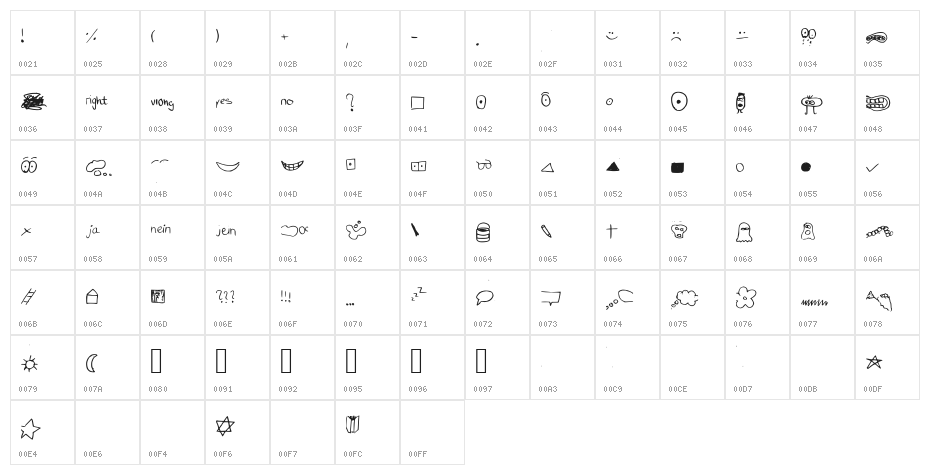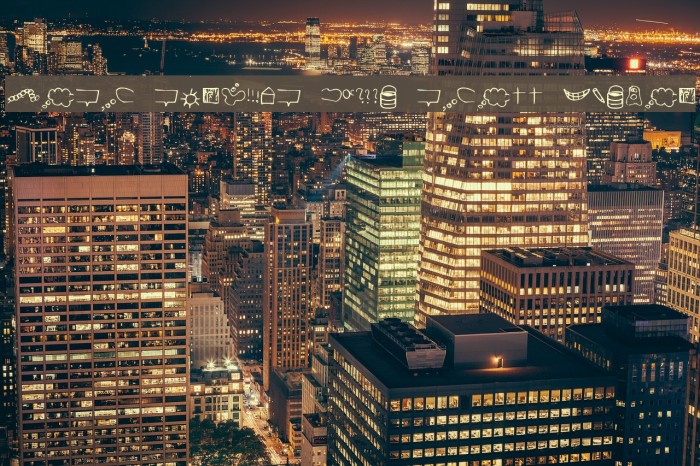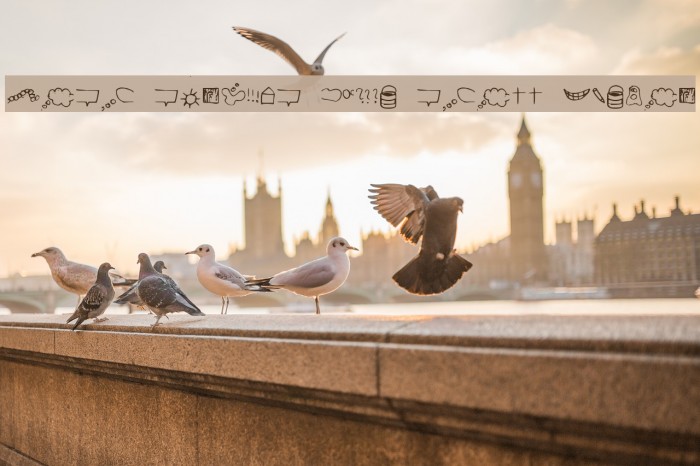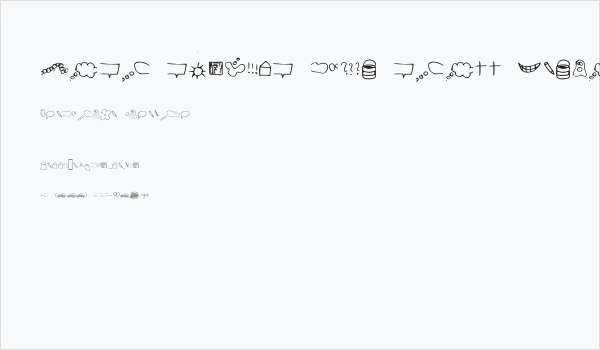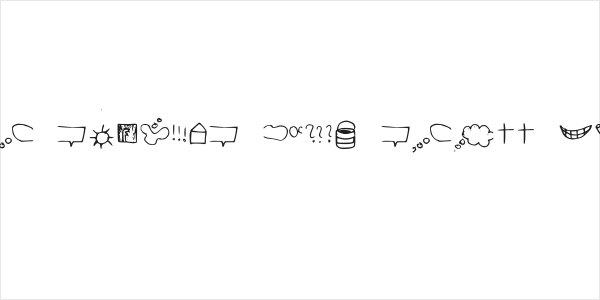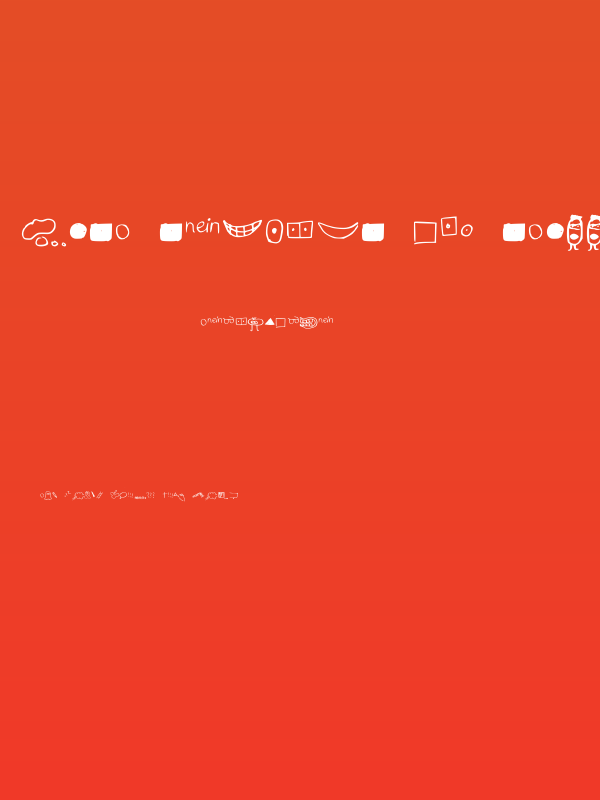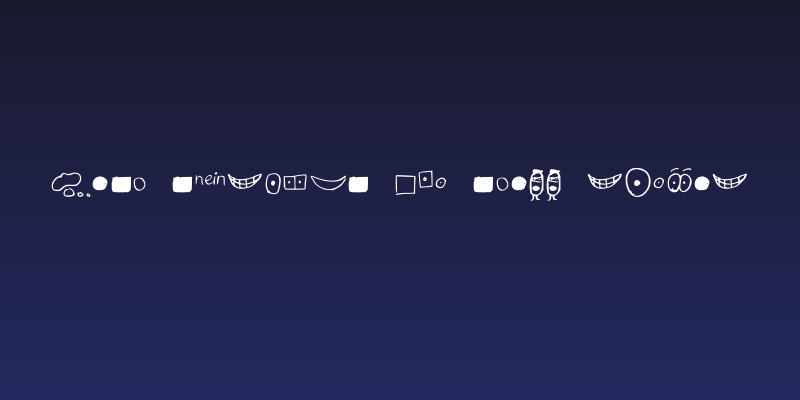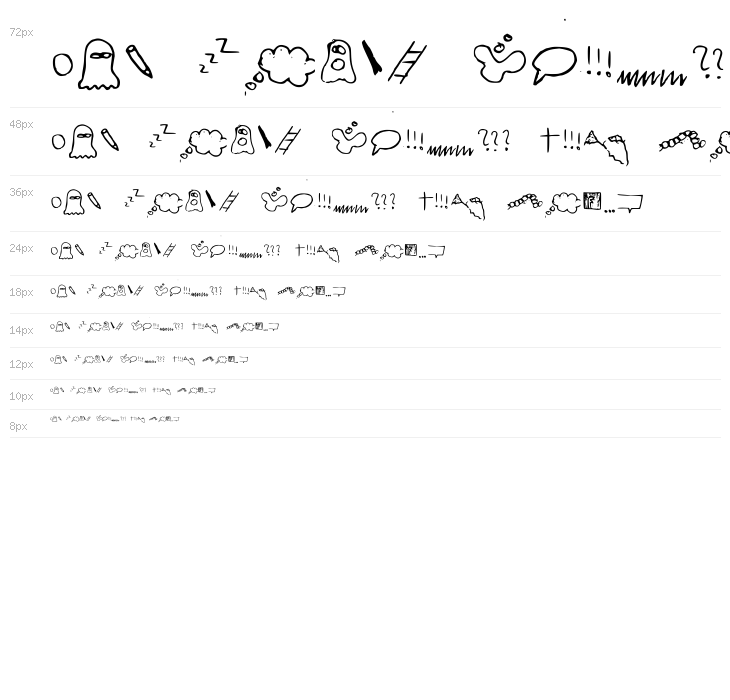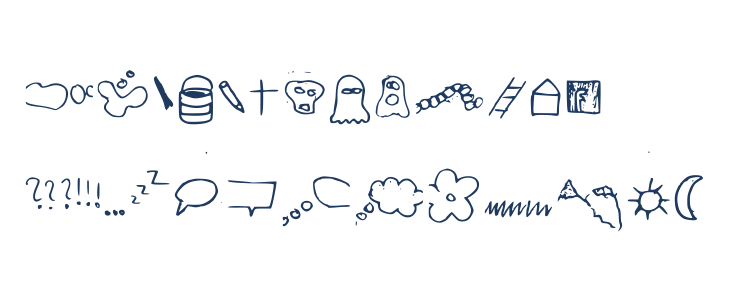
just symbols and stuff Medium Font
just symbols and stuff Medium Description
This collection features a playful and eclectic mix of symbols and doodles, each with a hand-drawn, whimsical style. The characters range from simple geometric shapes to expressive faces and abstract forms, creating a lively and informal aesthetic. The line work is uneven and organic, adding to the casual and spontaneous feel of the design. The symbols include a variety of everyday objects, abstract shapes, and expressive faces, each rendered with a unique and quirky touch. This set is perfect for projects that require a fun and informal visual language, offering a wide range of expressive possibilities.
| Overall Style | Whimsical, Playful |
| Use Case | Decorative elements, Illustrations, Informal designs |
| Proposed Projects | Ideal for children's books, casual invitations, creative posters, and playful branding projects. |